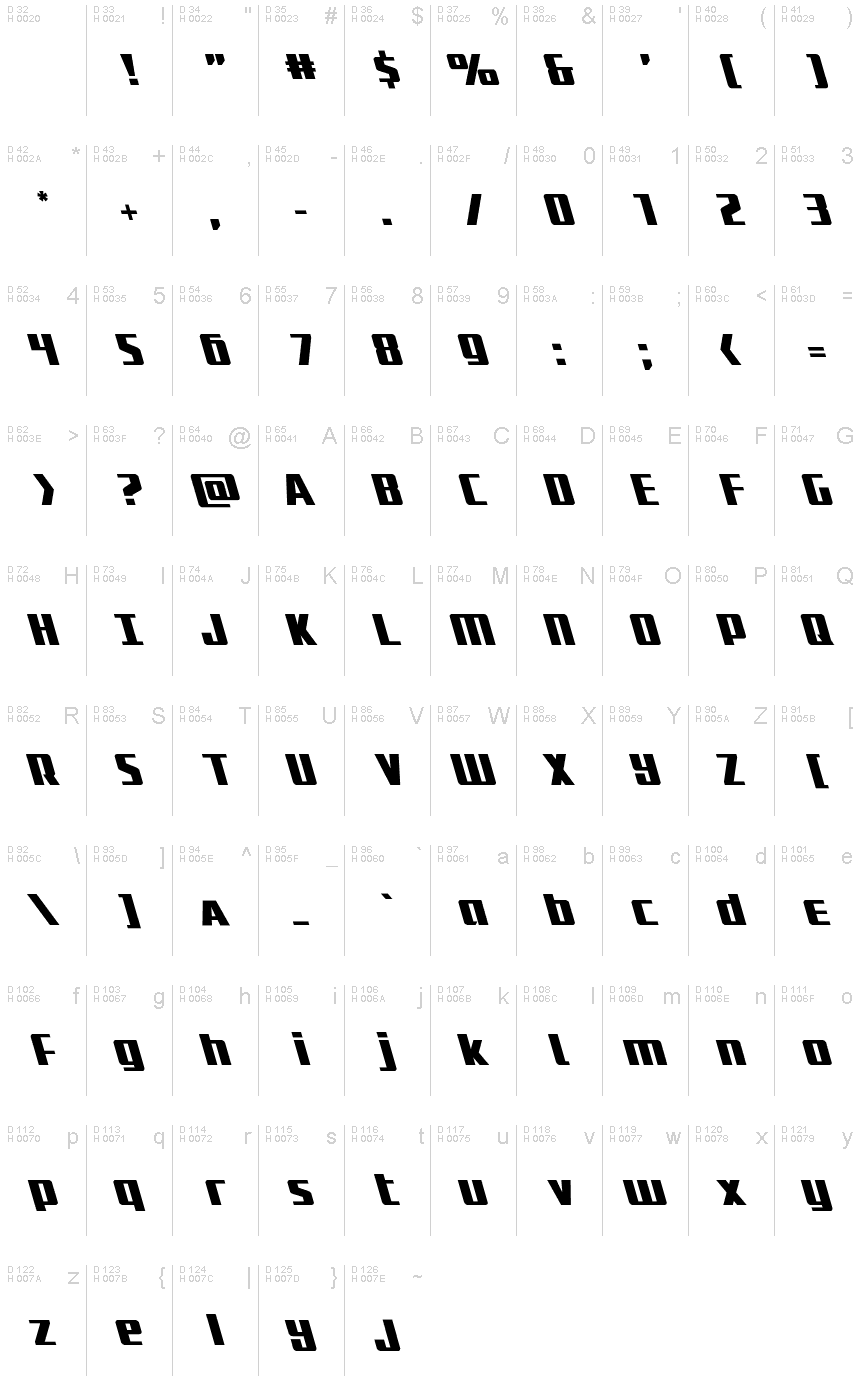
Subadai Baan Super-Leftalic
Subadai Baan Super-Leftalic is a bold and striking display font designed by Daniel Zadorozny. The techno style of the font adds a futuristic touch to any project it's used in. Its unique left-leaning italic design makes it stand out from traditional fonts, perfect for catching the viewer's attention. This font is suitable for various projects such as logos, posters, and magazine covers. It can also be used for digital designs such as websites and mobile applications that require a modern and edgy look. Add Subadai Baan Super-Leftalic to your typography arsenal and take your designs to the next level!